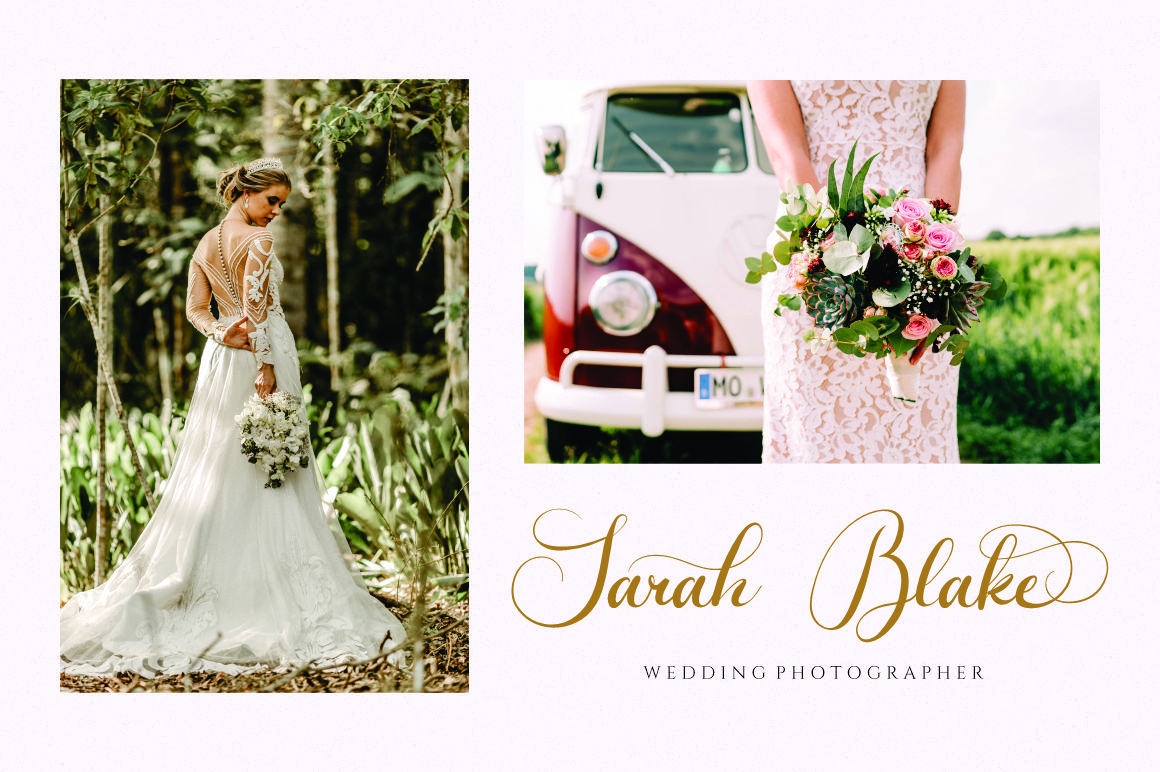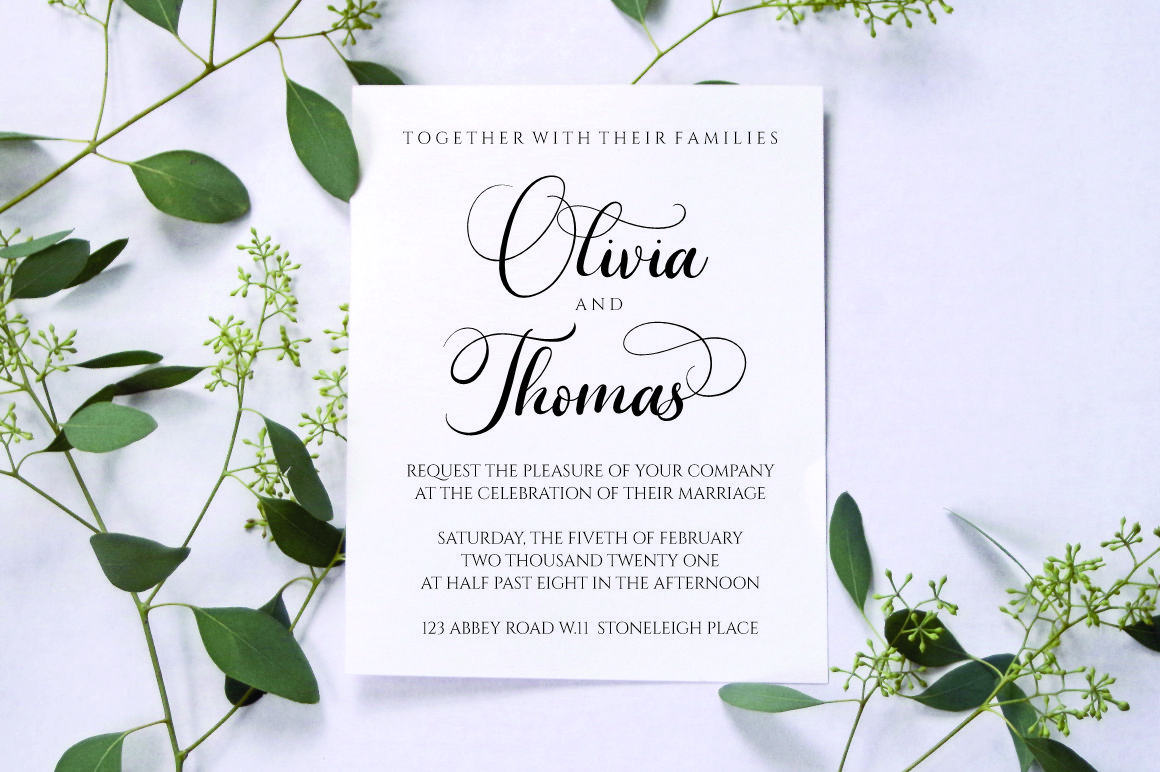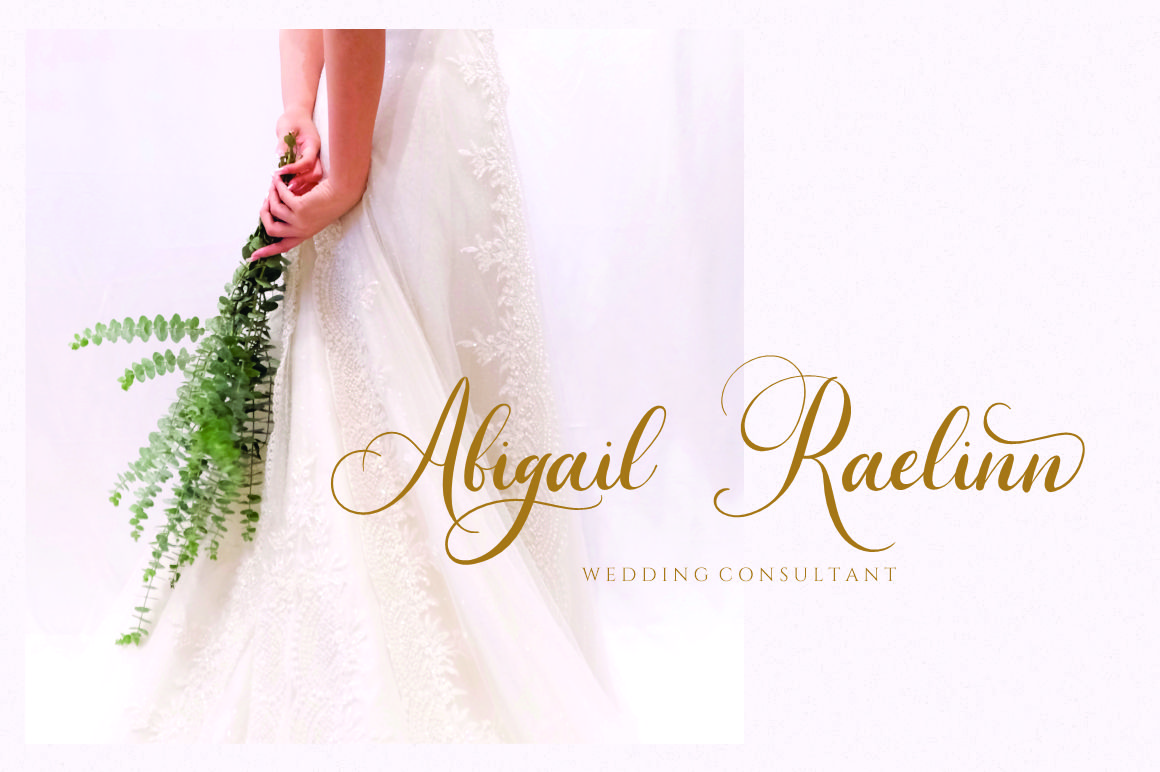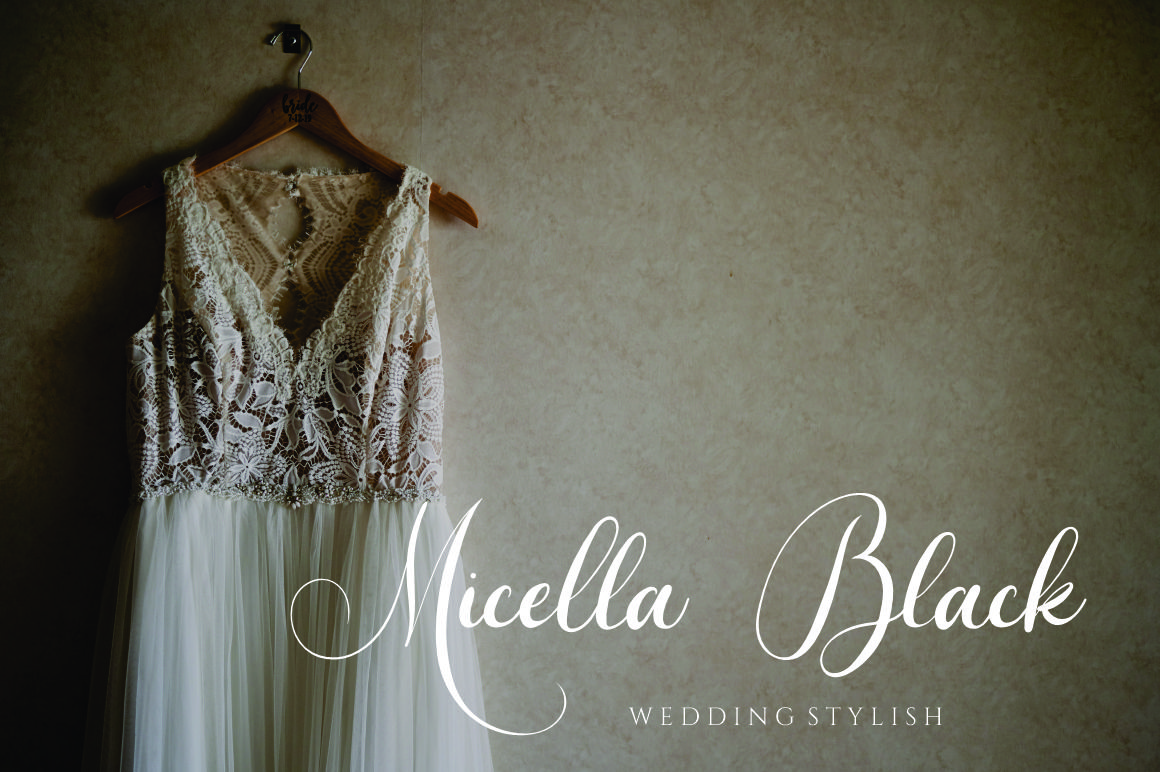
The Julayna Calligraphy Font
This is an equally sophisticated and elegant handwritten font that’s great for delivering any message with confidence, authenticity and charm. It will elevate a wide range of crafting ideas, from cards, to branding, labels and much more.